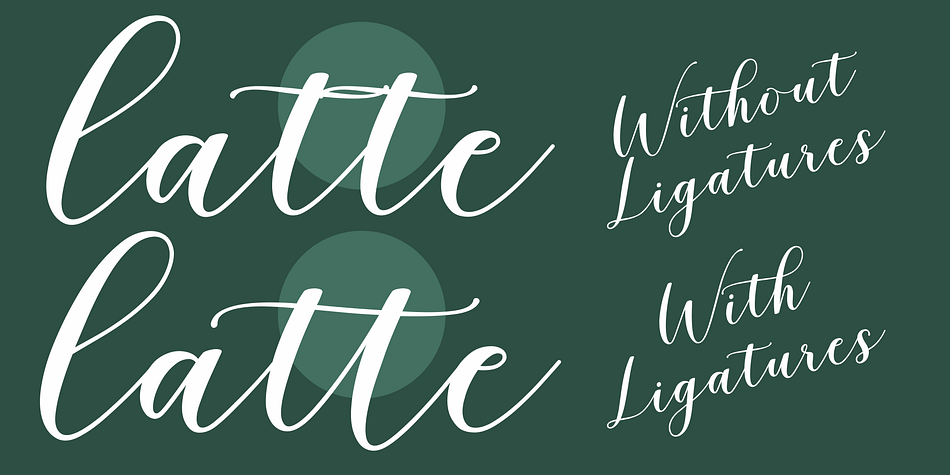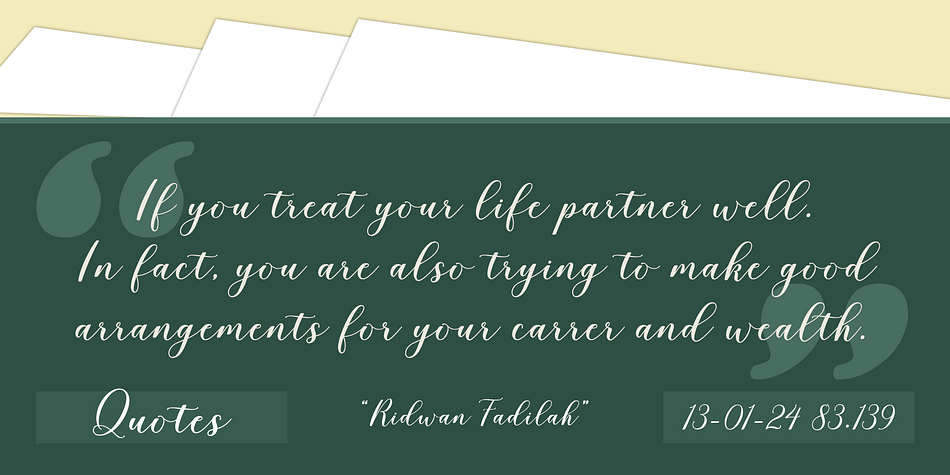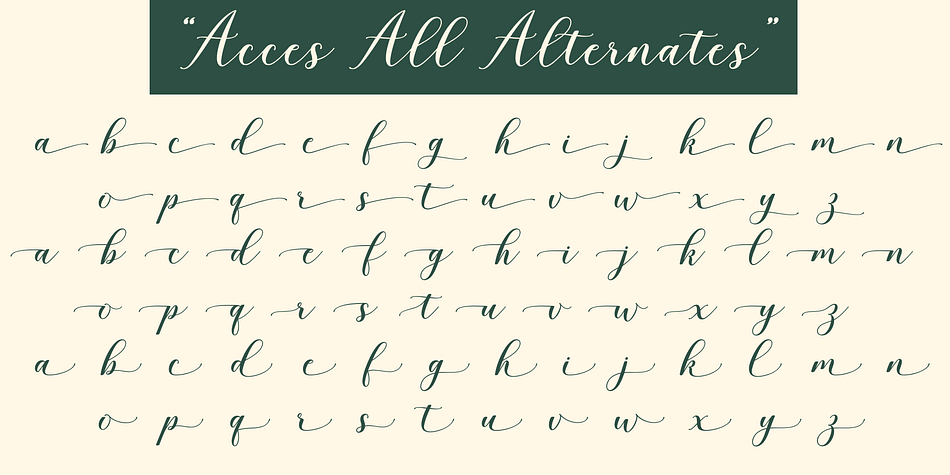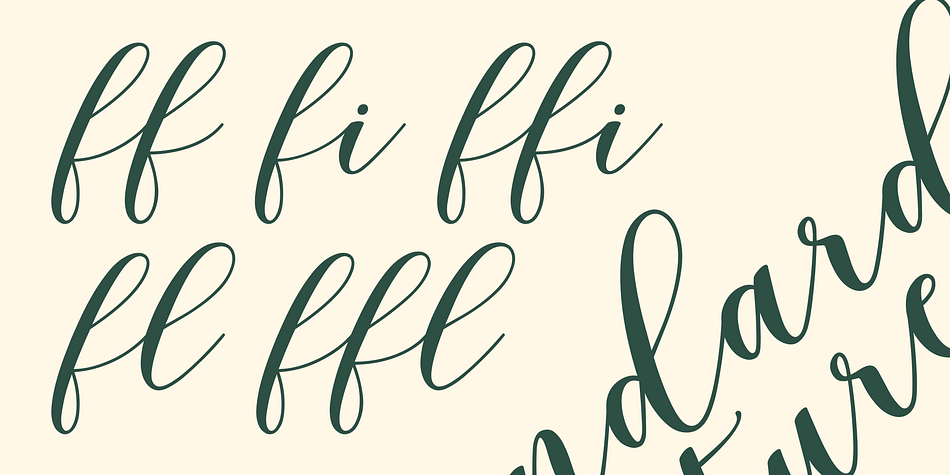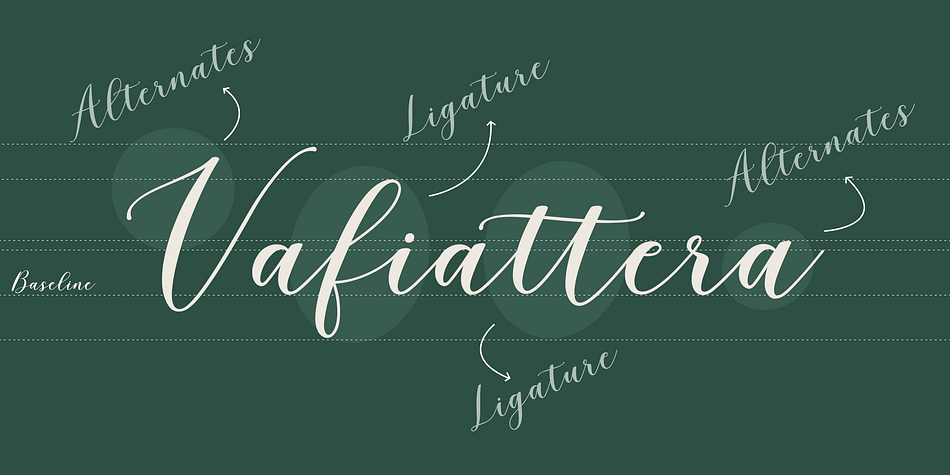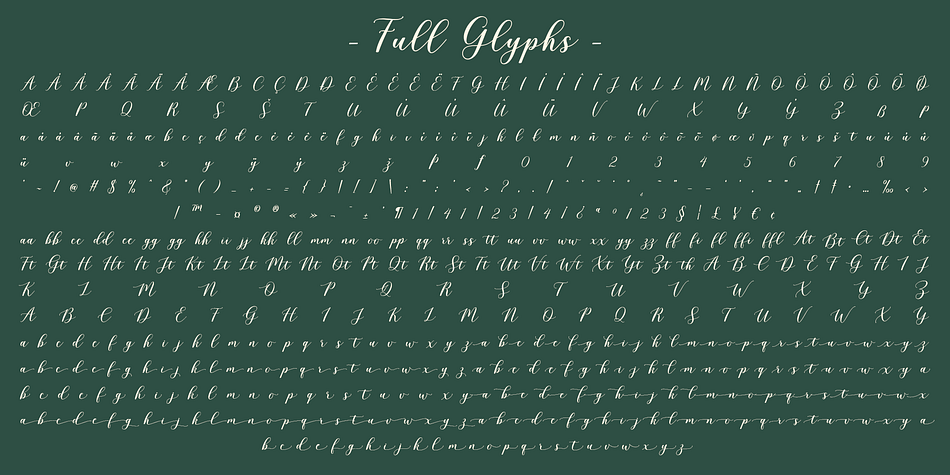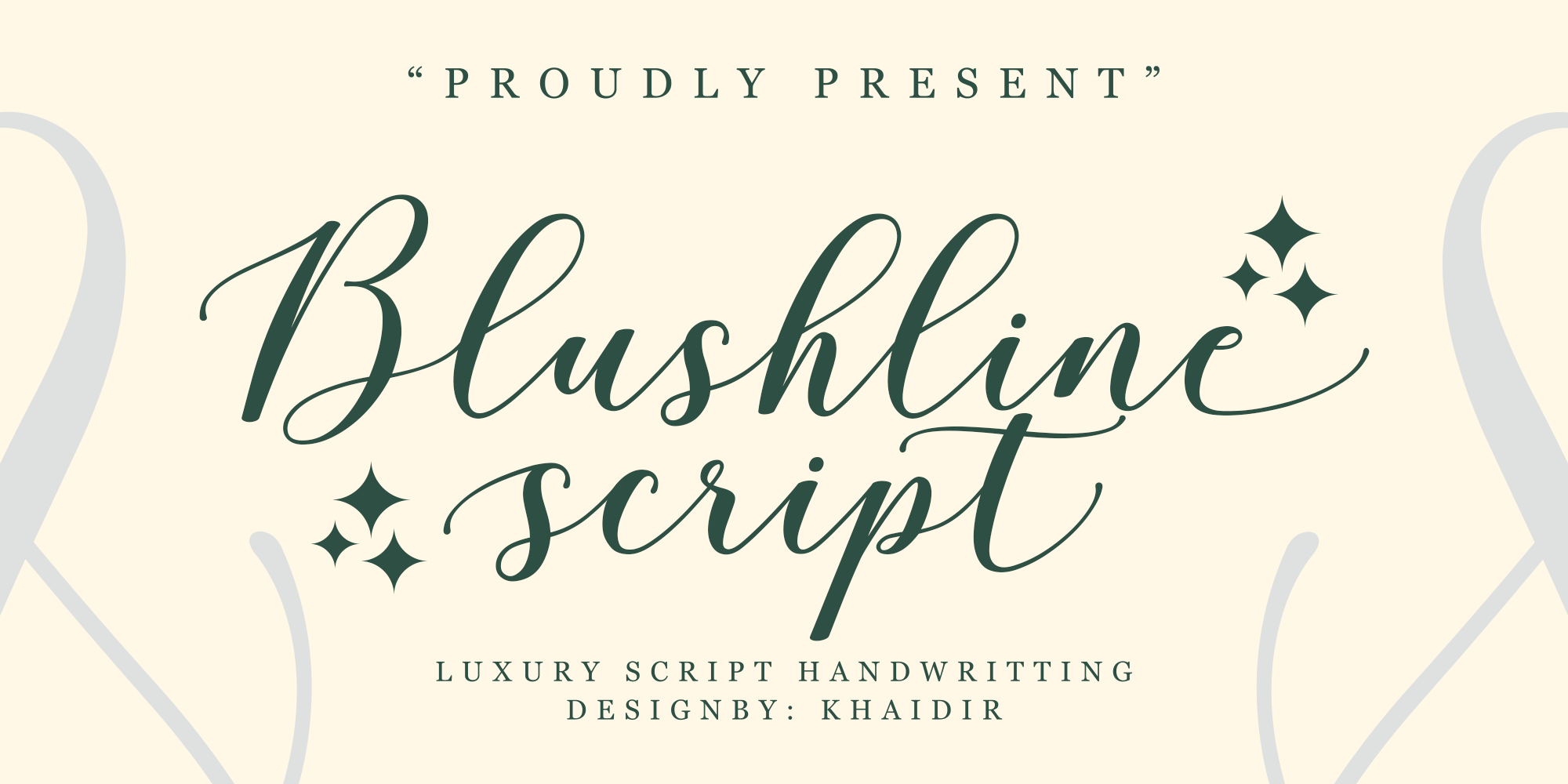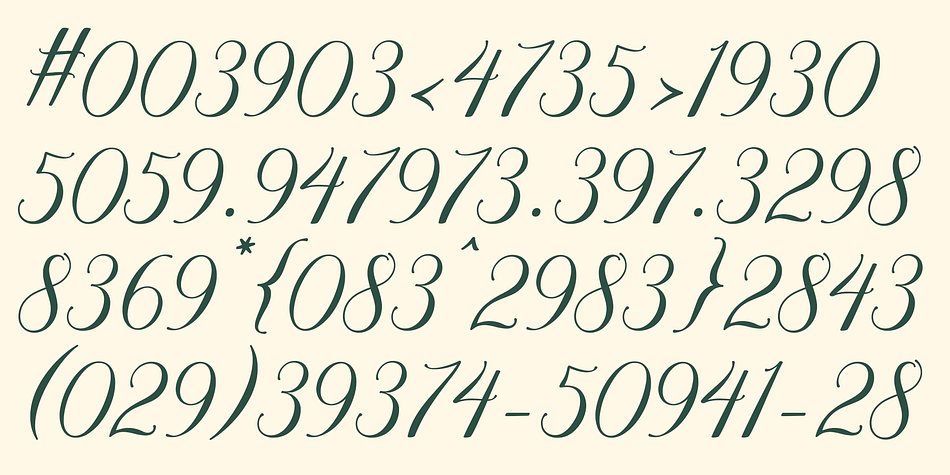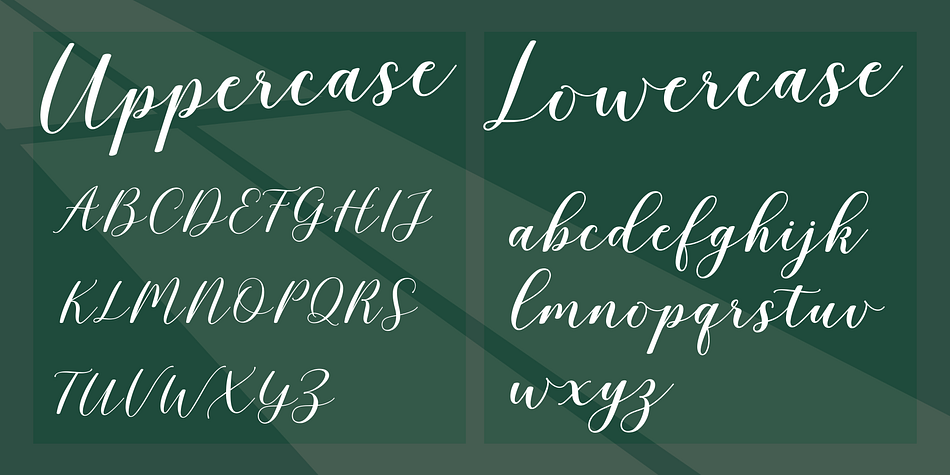
Blushline Script
Blushline Script is a modern calligraphy font family published by Gatype.
Blushline Script is a beautiful and sweet calligraphy font. It’s fresh, modern and elegant. This font will look amazing in many projects, from wedding invitations and greeting cards to social media quotes, branding, and more!
Hand-drawn design elements allow you to create many beautiful typographic designs in an instant like branding, web design and editorial, prints, crafts, quotes, It’s great for logotypes, wedding invitations, romantic cards, labels, packaging, spelling of names and others.
Blushline Script includes OpenType stylistic alternates, ligatures and International support for most Western Languages. To enable the OpenType Stylistic alternates, you need a program that supports as Adobe Illustrator CS, Adobe Indesign & CorelDraw X6-X7, Microsoft Word 2010 or later versions.